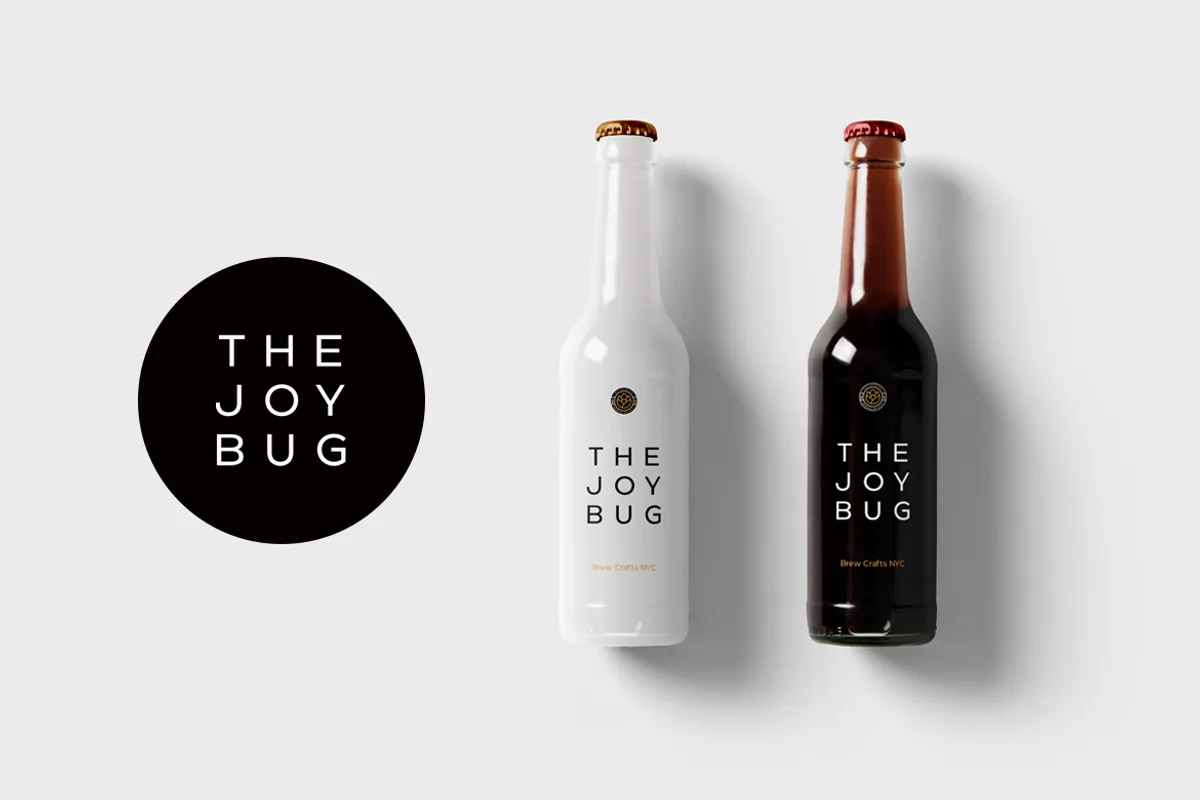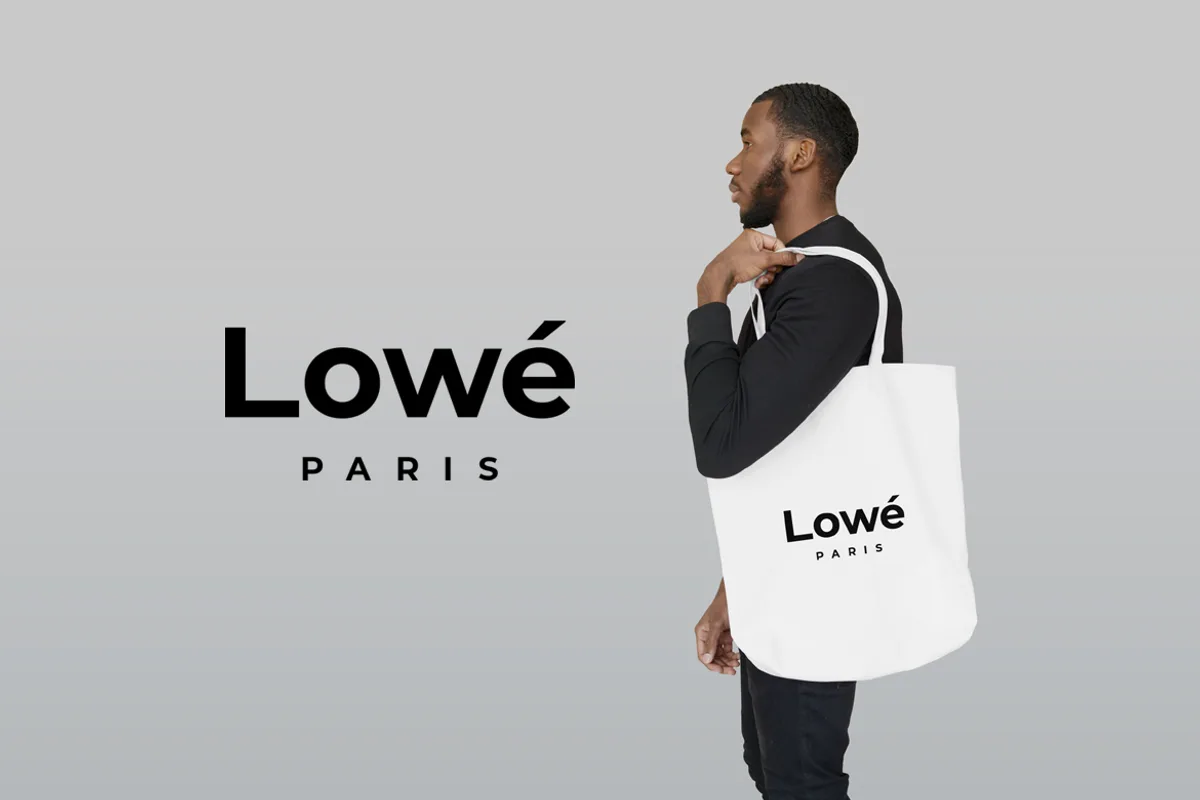
Optika is a minimal and modern Sans-Serif typeface that makes your designs stand out from the crowd. Optika is an all-purpose typeface, a perfect choice for creating logotypes, branding, headlines, corporate identities, and marketing materials for web, digital & print alike.
The typeface will be a great option for branding, logo/logotype design projects, marketing graphics, banners, posters, signage, corporate identities and editorial design. Adding extra letter spacing will make this font the perfect choice for minimal headlines and logotypes, as shown in the promo designs attached.
Optika Minimalist Font Family